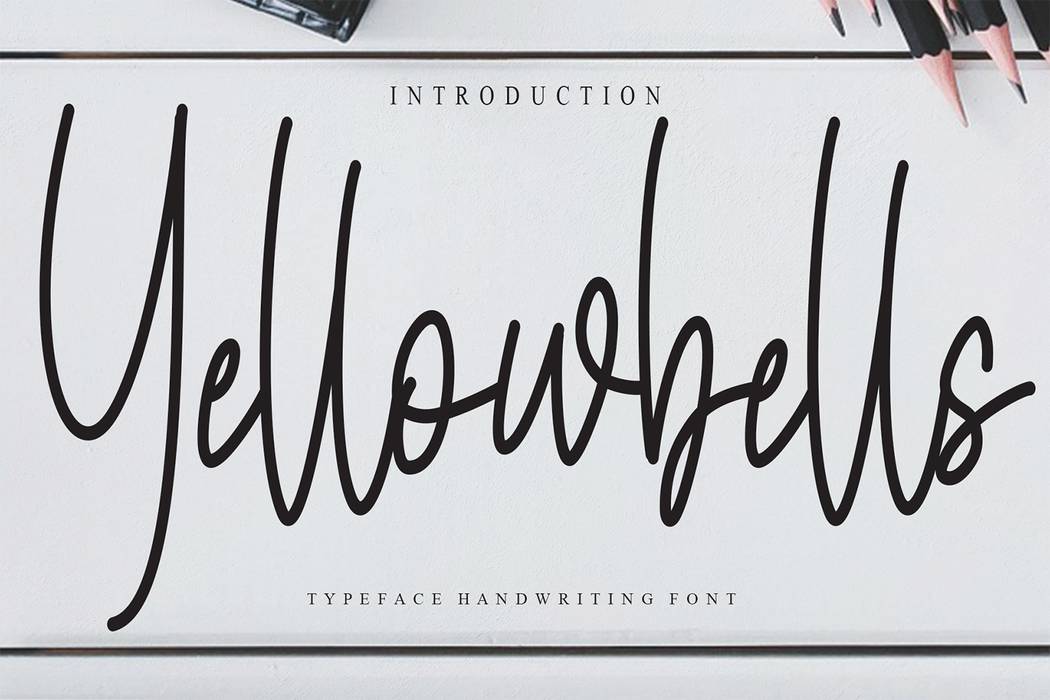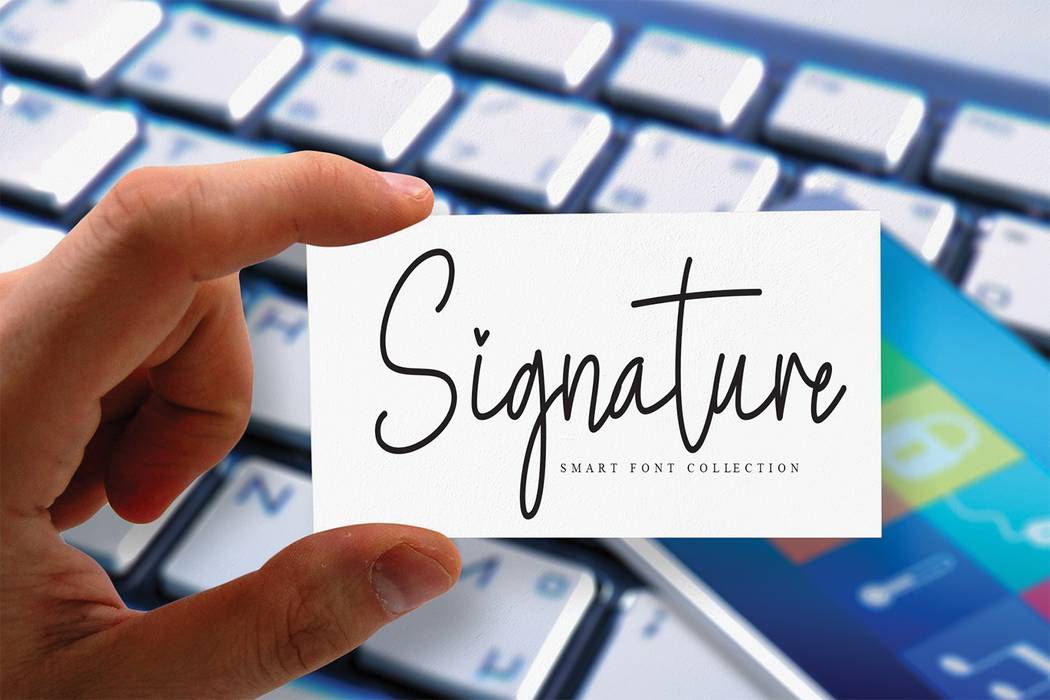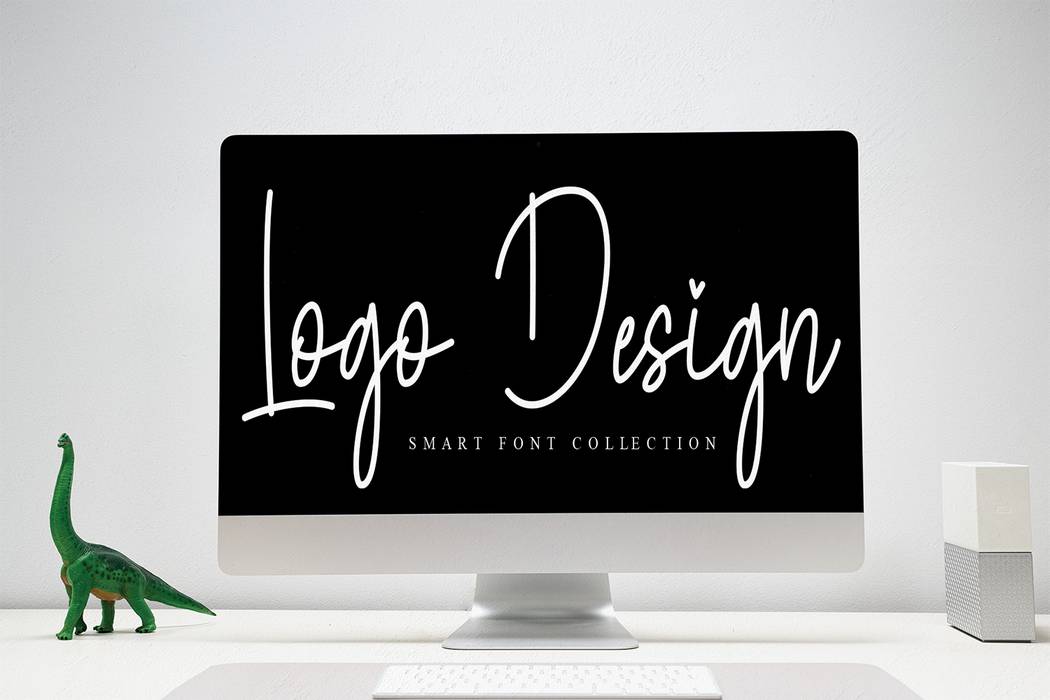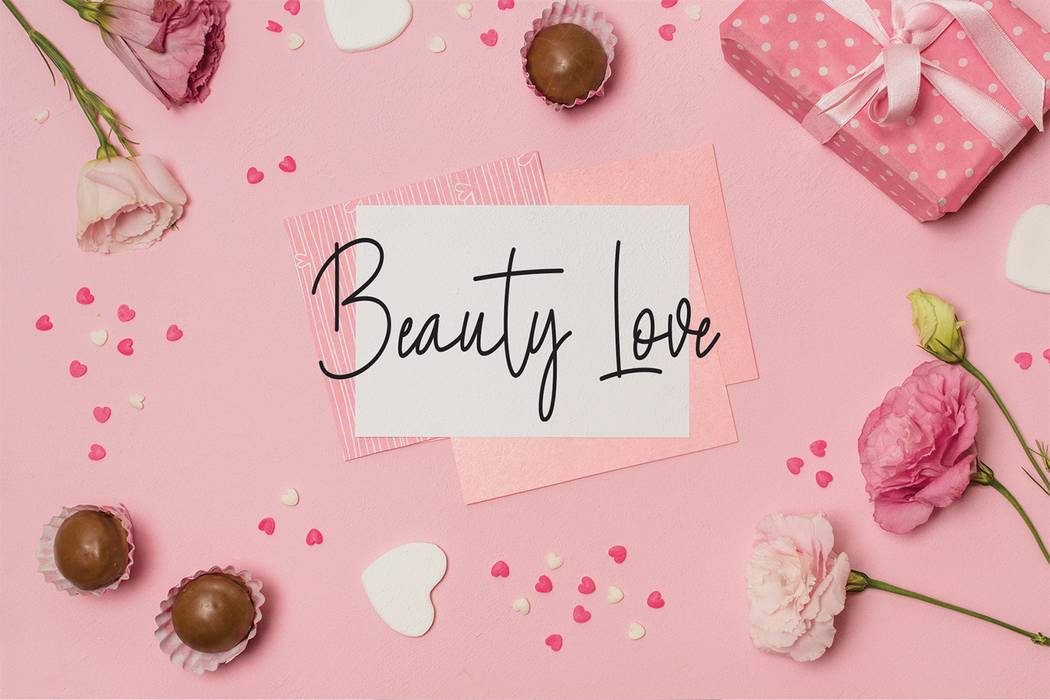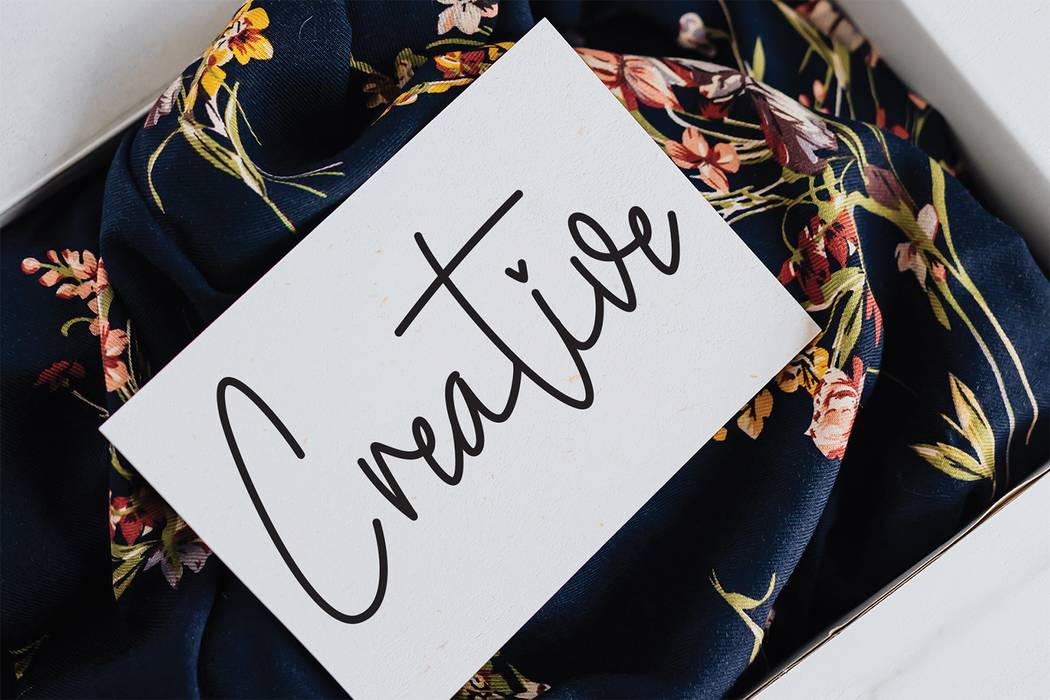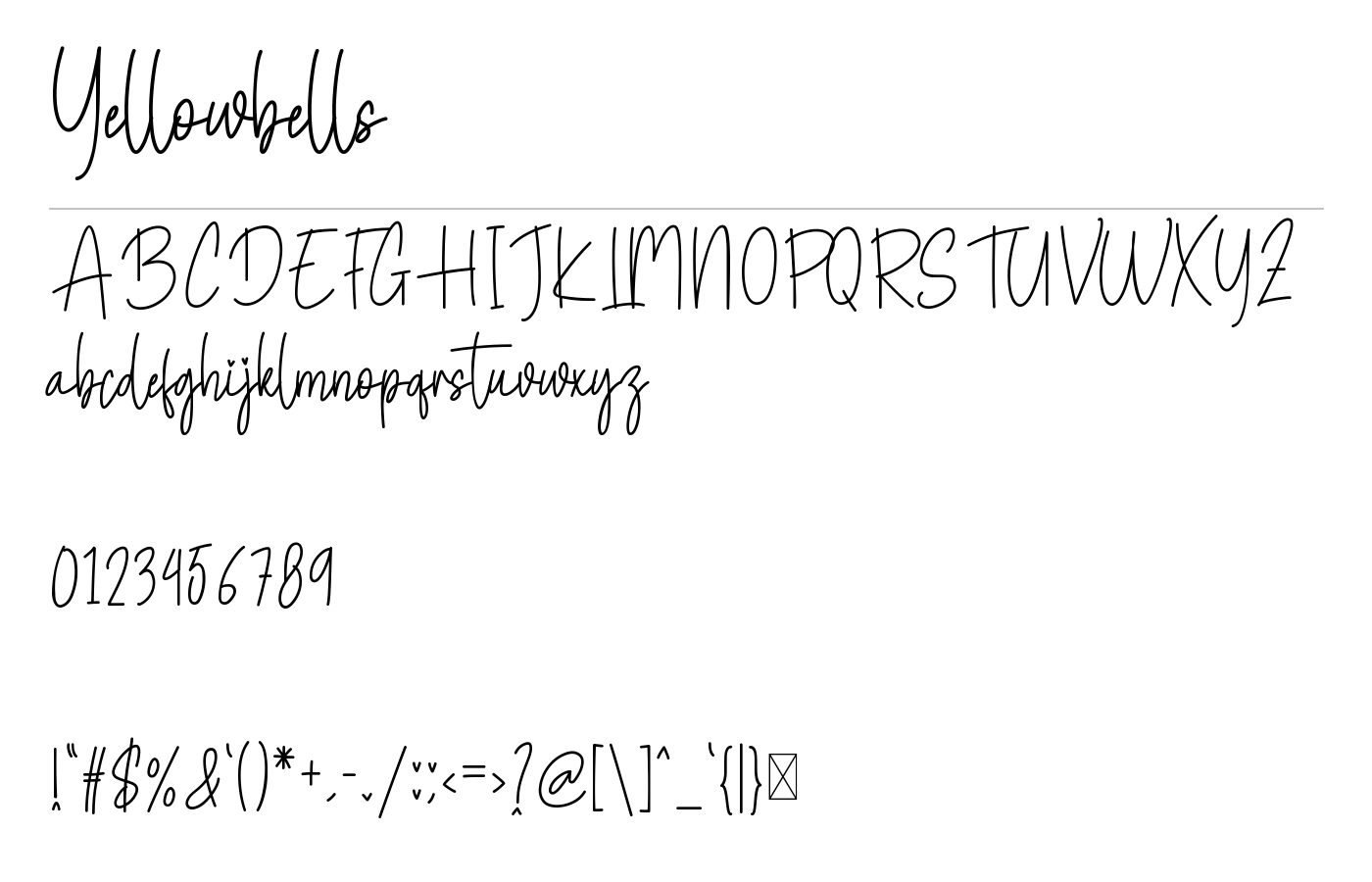
Yellowbells is a delicate, handwritten script font characterized by its tall, narrow letterforms and playful, casual style. Its thin, flowing strokes give it a light and airy feel, making it ideal for personal, creative, and informal designs such as invitations, branding, and social media graphics where a friendly and approachable tone is desired.
Yellowbells Font